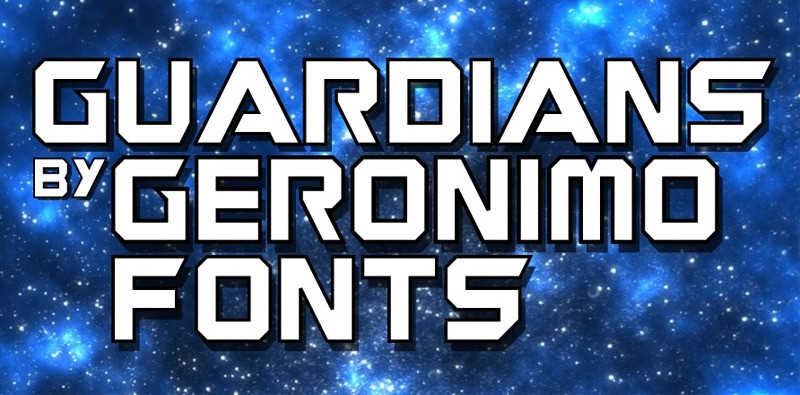
Guardians Font
Guardians Display Font is a stunning, beautiful and flowing font. It has beautiful and well balanced characters and as a result, it matches a wide pool of designs. Add it to your most creative ideas and notice how it makes them come alive!